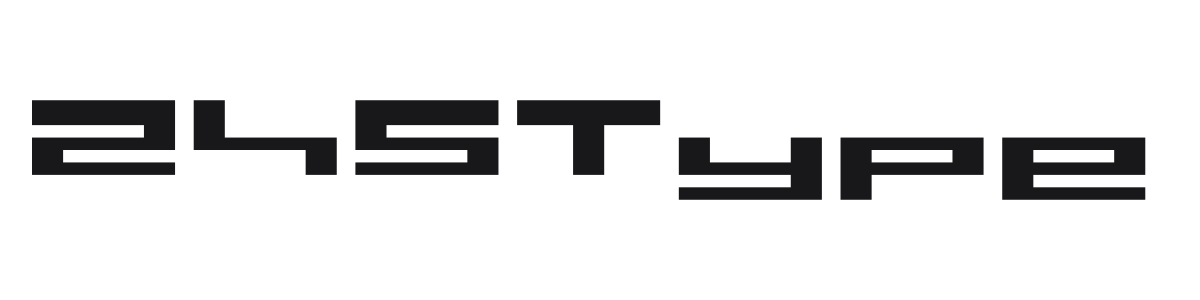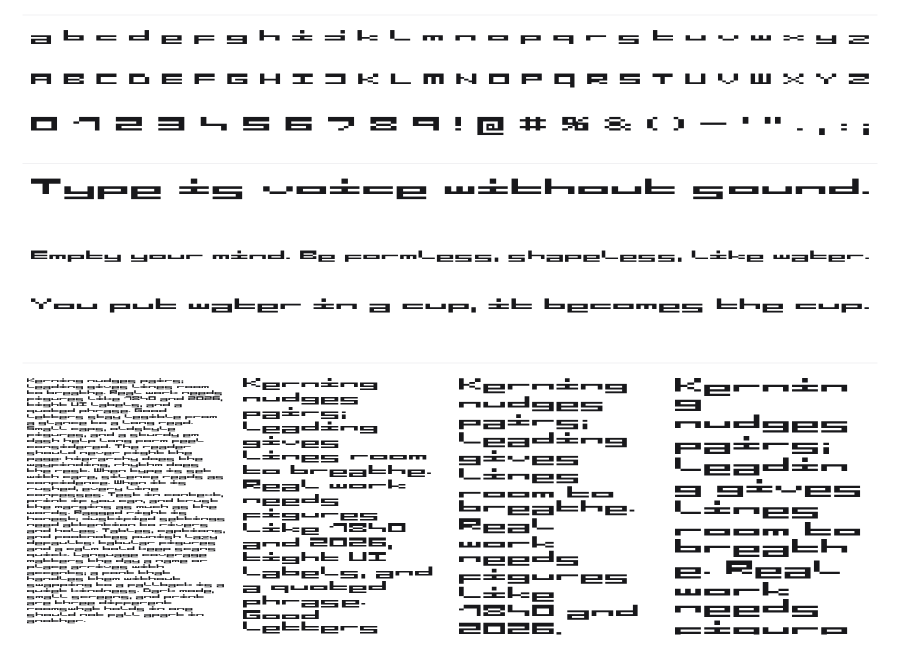
245Type
245Type is a wide, heavy techno display face with squared geometry and machine-cut precision. Its extremely extended proportions and flat monoweight strokes give it a low, horizontal momentum that commands attention at large sizes. The notched joints and hard angles push it firmly into industrial and digital territory.